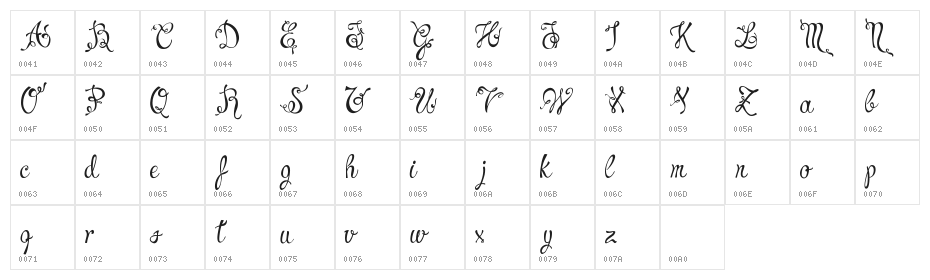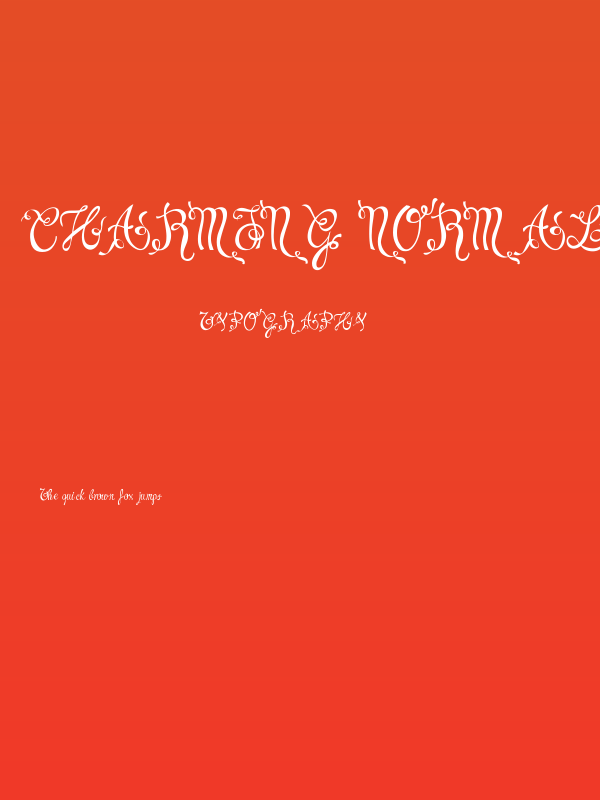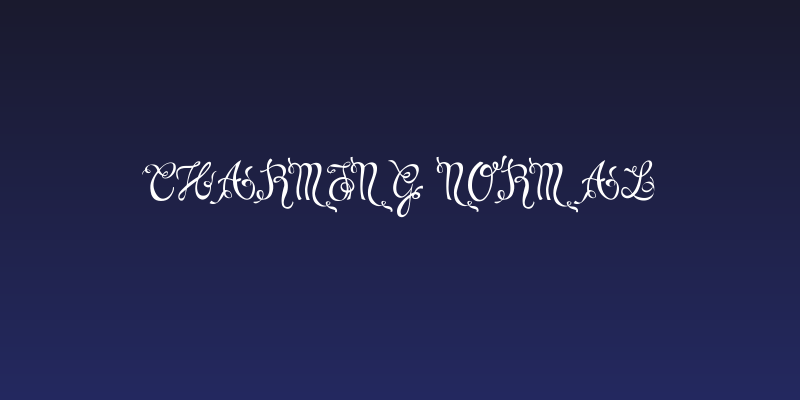
Charming Normal Font
Charming Normal Description
This font features an elegant and whimsical design, characterized by its intricate swirls and flourishes that extend from the main strokes of each letter. The uppercase letters are particularly ornate, with decorative elements that add a sense of sophistication and playfulness. The lowercase letters maintain a more fluid and cursive style, providing a nice contrast to the more elaborate uppercase. This font is perfect for creating a sense of charm and elegance in any design project. The overall style is reminiscent of calligraphy, with a modern twist that makes it suitable for contemporary applications. The characters are well-spaced, allowing for readability despite the decorative nature of the font.
| Use Case | Headlines, Logos, Invitations |
| Proposed Projects | Ideal for wedding invitations, greeting cards, branding, and decorative headlines. |